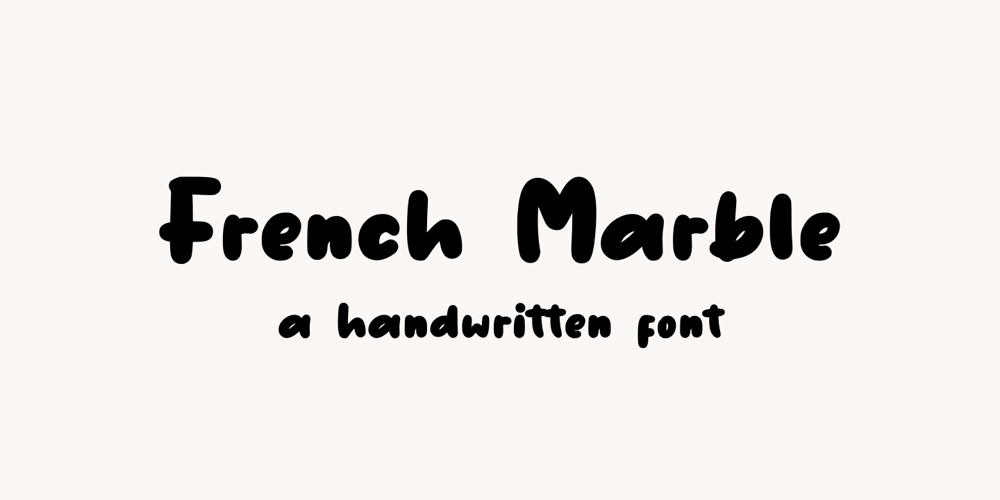
French Marble Font Family was designed by Muhamad Yusron Billah and published by Sronstudio. French Marble contains 1 styles and family package options. French Marble – Handwritten Font, this font Is perfect for product packaging, product designs, label, photography, watermark, special events, or anything.Features: File OTF, TTF, WOFF Uppercase and lowercase letters Multilingual, numerals, and punctuation If you have any questions feel free to drop me a messageFollow Instagram: @sronstudioThank You!